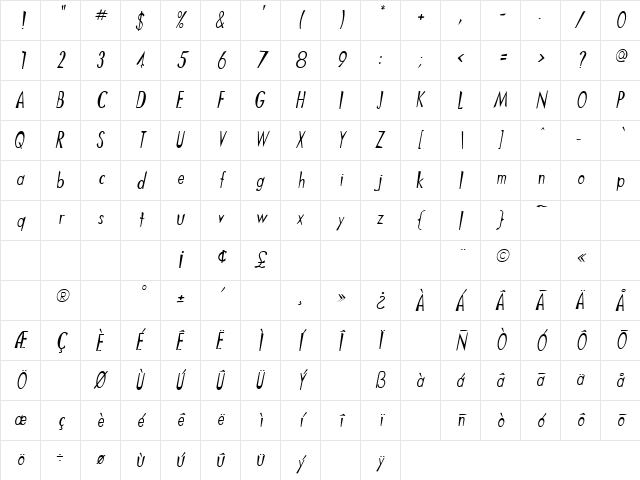
Lattice Oblique Free Font
Lattice Oblique
Lattice Family
Design Context for Lattice
Lattice is a composed and adaptable typeface that performs quietly and consistently across a wide range of design contexts. The slanted form adds forward momentum and visual energy.
Pro Tip: Use Lattice for emphasis, pull quotes, and subheadings where its slanted energy can add rhythm to the layout.